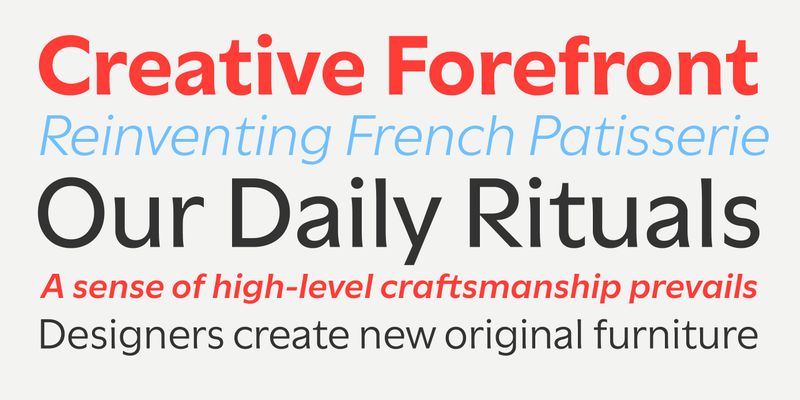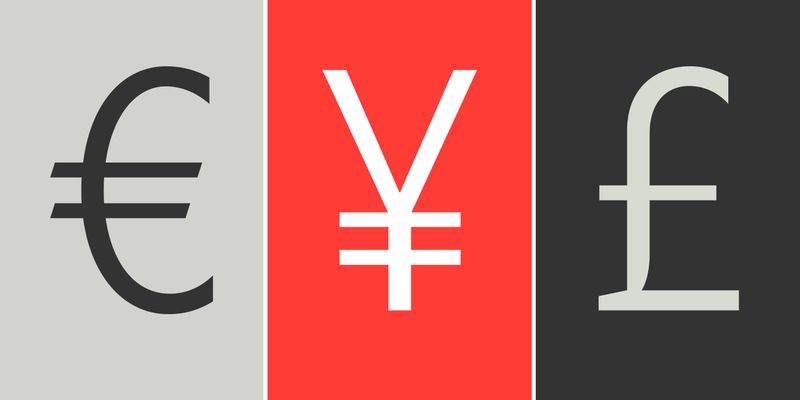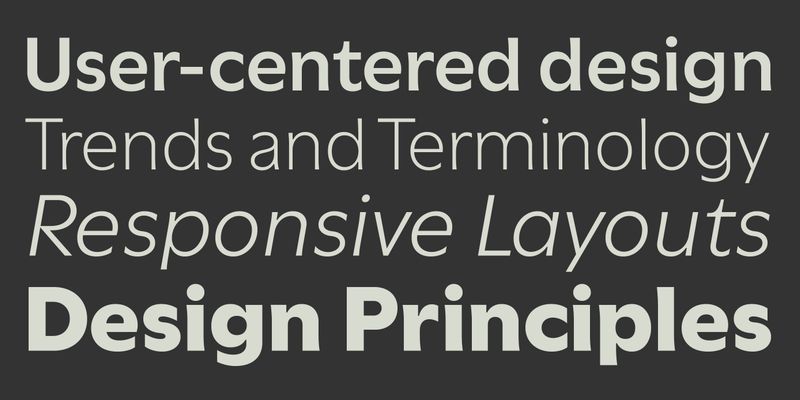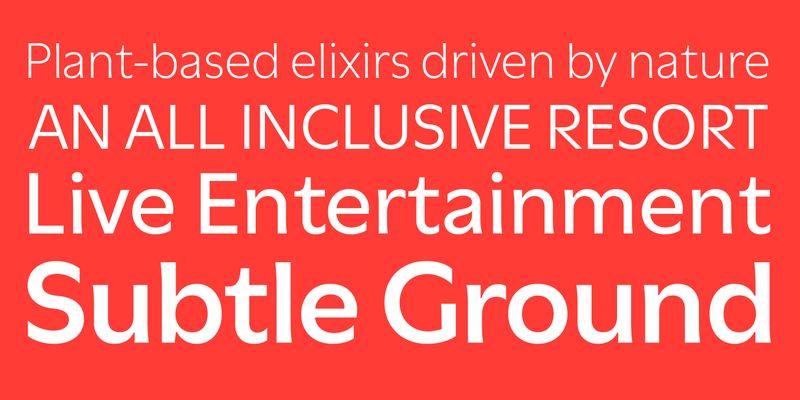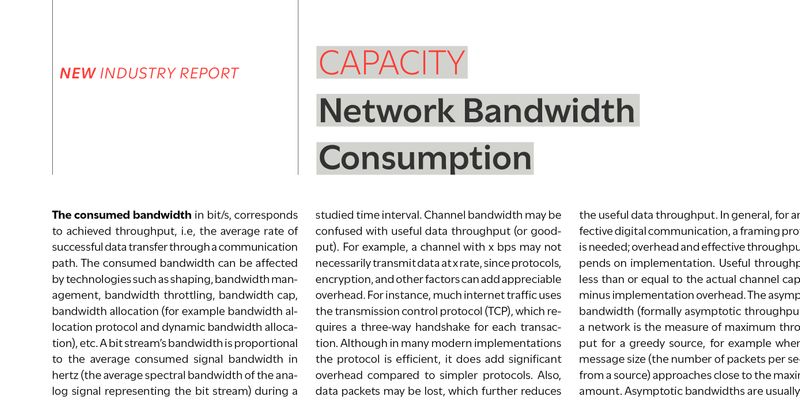
Utile and Utile Display are elegantly flared sans in two finishes suited for continuous smaller-sized text and corresponding display typography, with an overarching aim for superb legibility and optical balance. Designed with clarity and function in mind, Utile (text) features a solid letter build with carefully weighed spacing for ongoing passages of text, and form definitions compensating for trapped ink and low pixel density. Utile Display, a modulated sans, pays tribute to the contrast of thick and thin, feeling right at home in title compositions with tighter letter spacing and re-proportioned designs. The contrasted sans promotes a timeless elegance and lively aesthetic that comes especially to light in larger sizes. The slightly curved stem modulation of the Utile Collection, uniquely asymmetrical in its application, attempts to maintain a balancing act between swelled strokes and the absence of such, a feature in tune with open counters and vertical stroke ends, yielding a dynamic quality. Open Type features include figures for text and tables, stylistic alternates, fractions, and more. The ample weight scale and multipurpose variety of text and display is intended, but not limited, for contemporary identity-branding, editorial and advertising for print and screen programs.